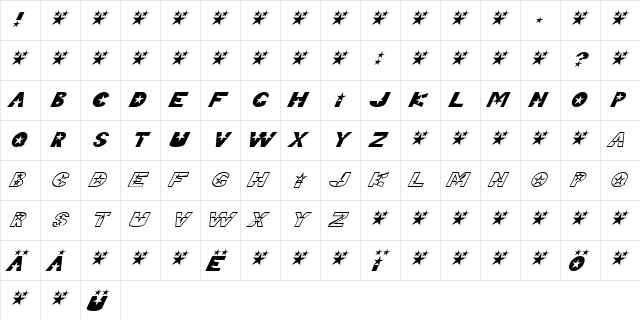
Complete Telemarketing Superstar Italic glyph index. Displaying only characters natively supported by Telemarketing Superstar Italic font.
Telemarketing Superstar is a composed and adaptable typeface that performs quietly and consistently across a wide range of design contexts. The slanted form adds forward momentum and visual energy.